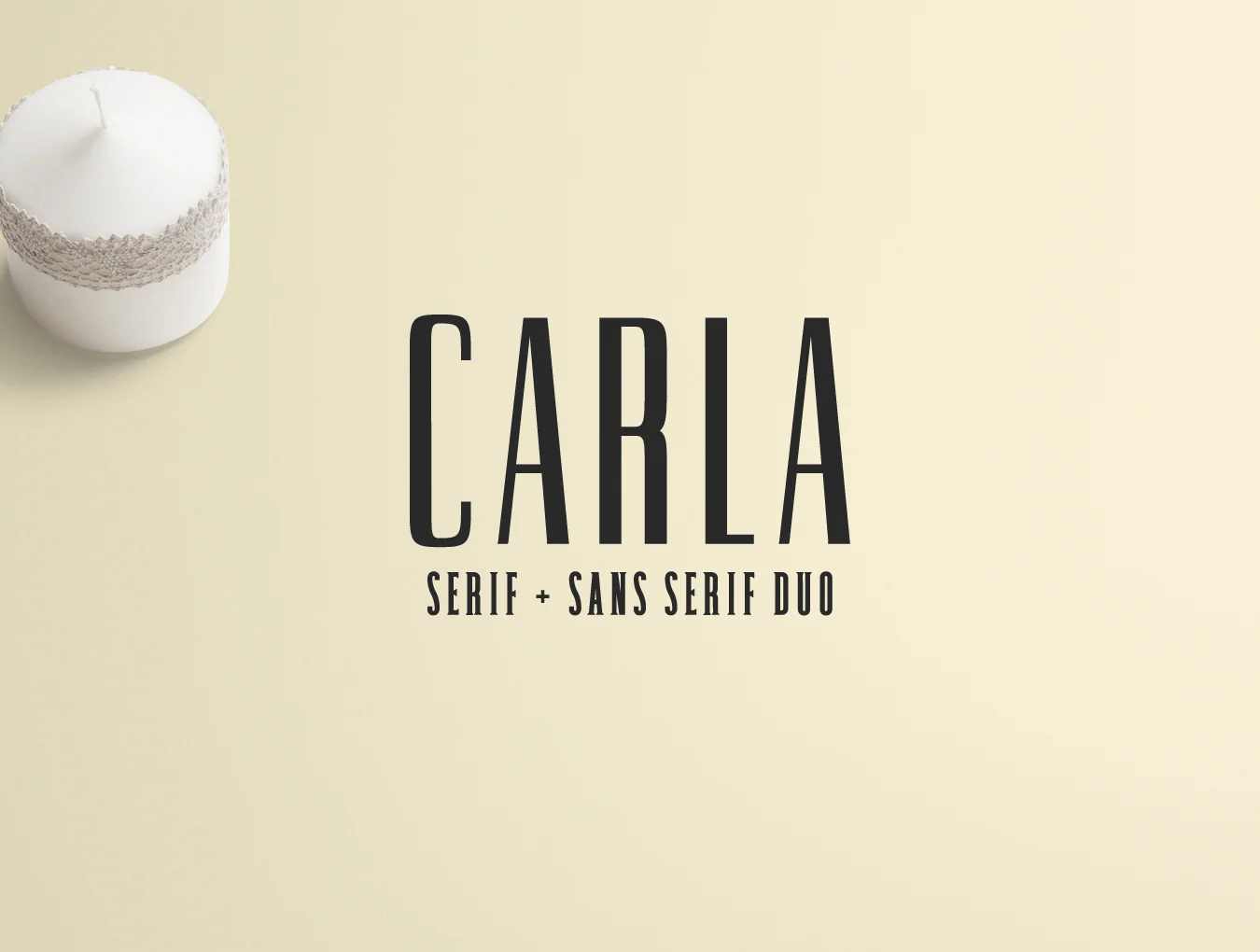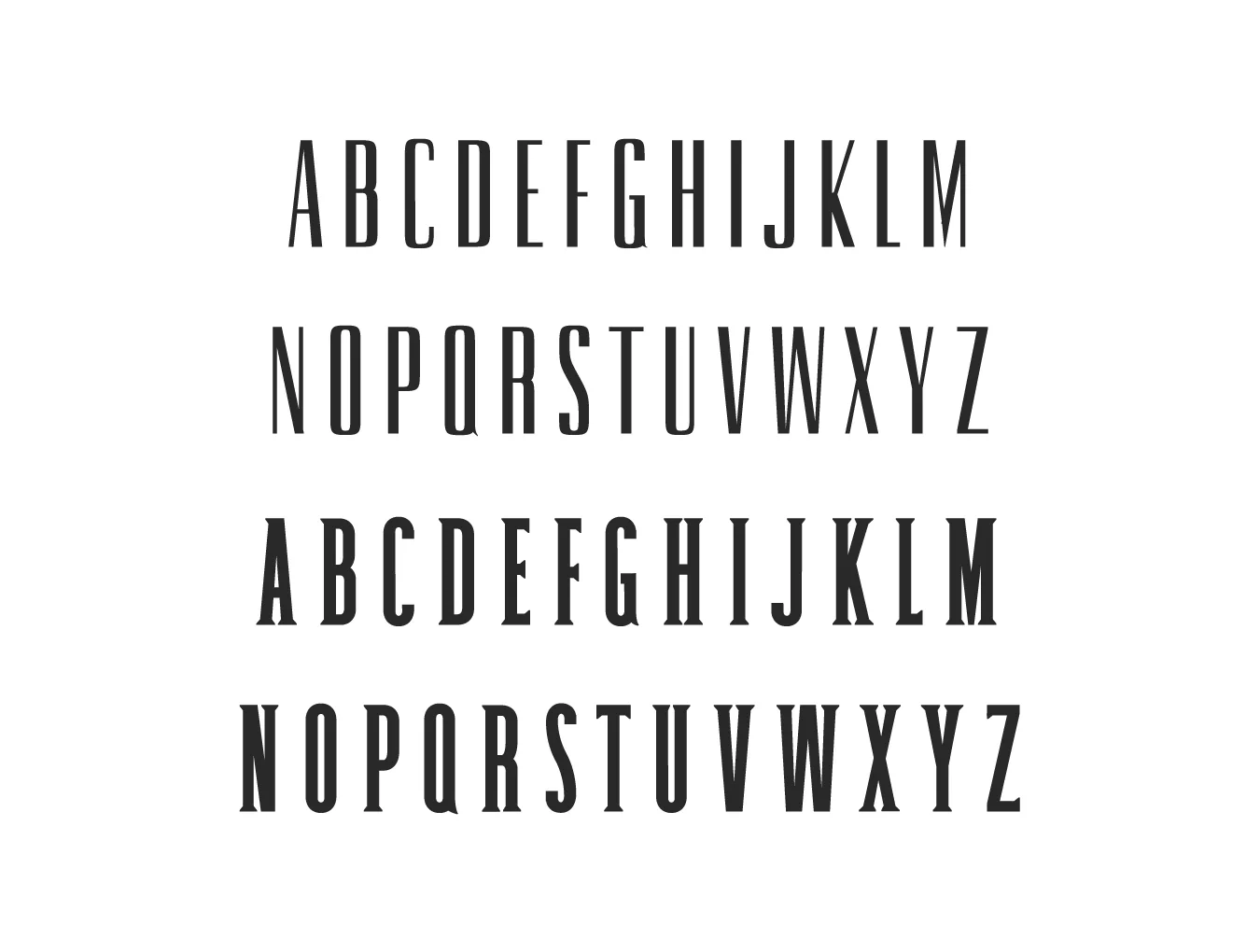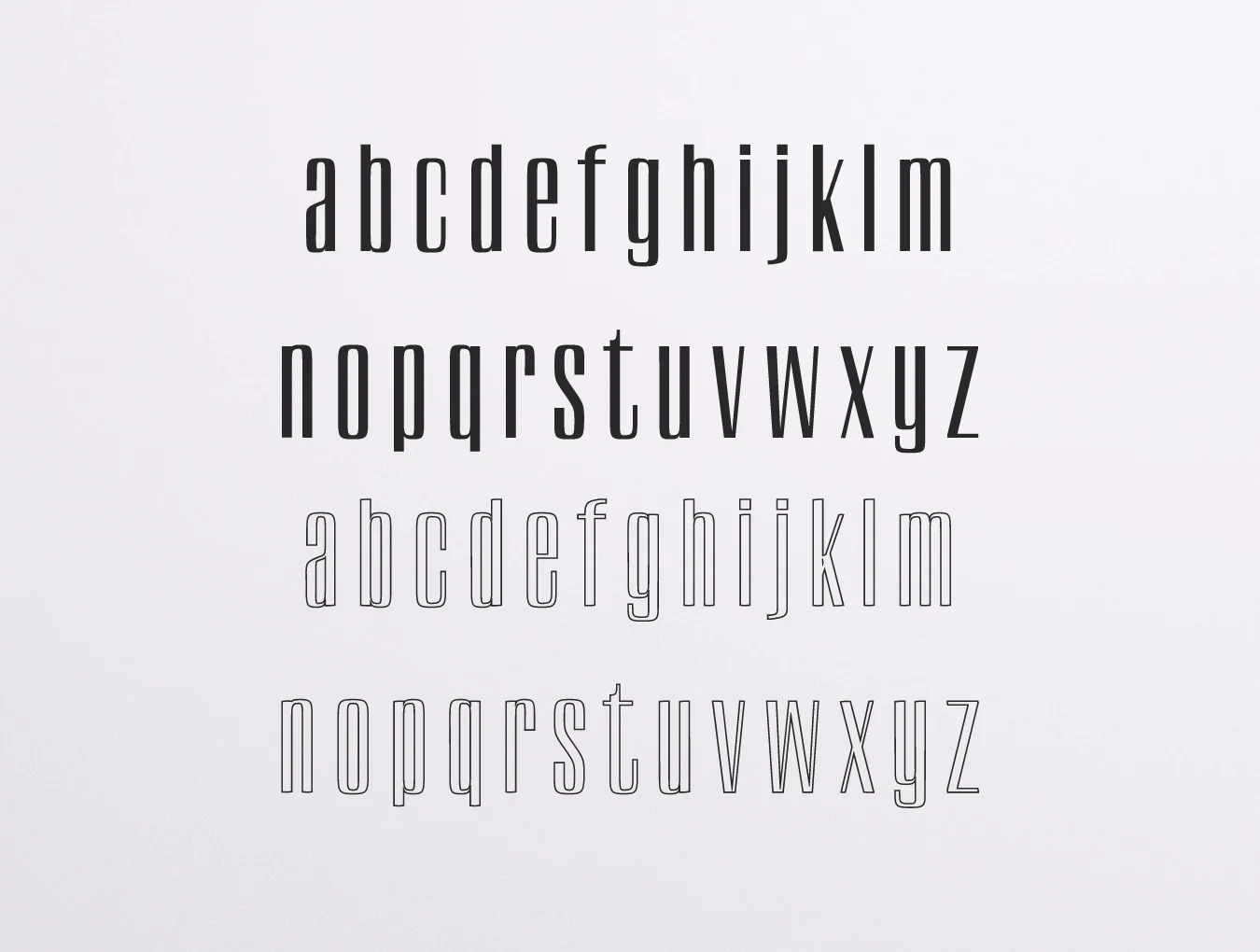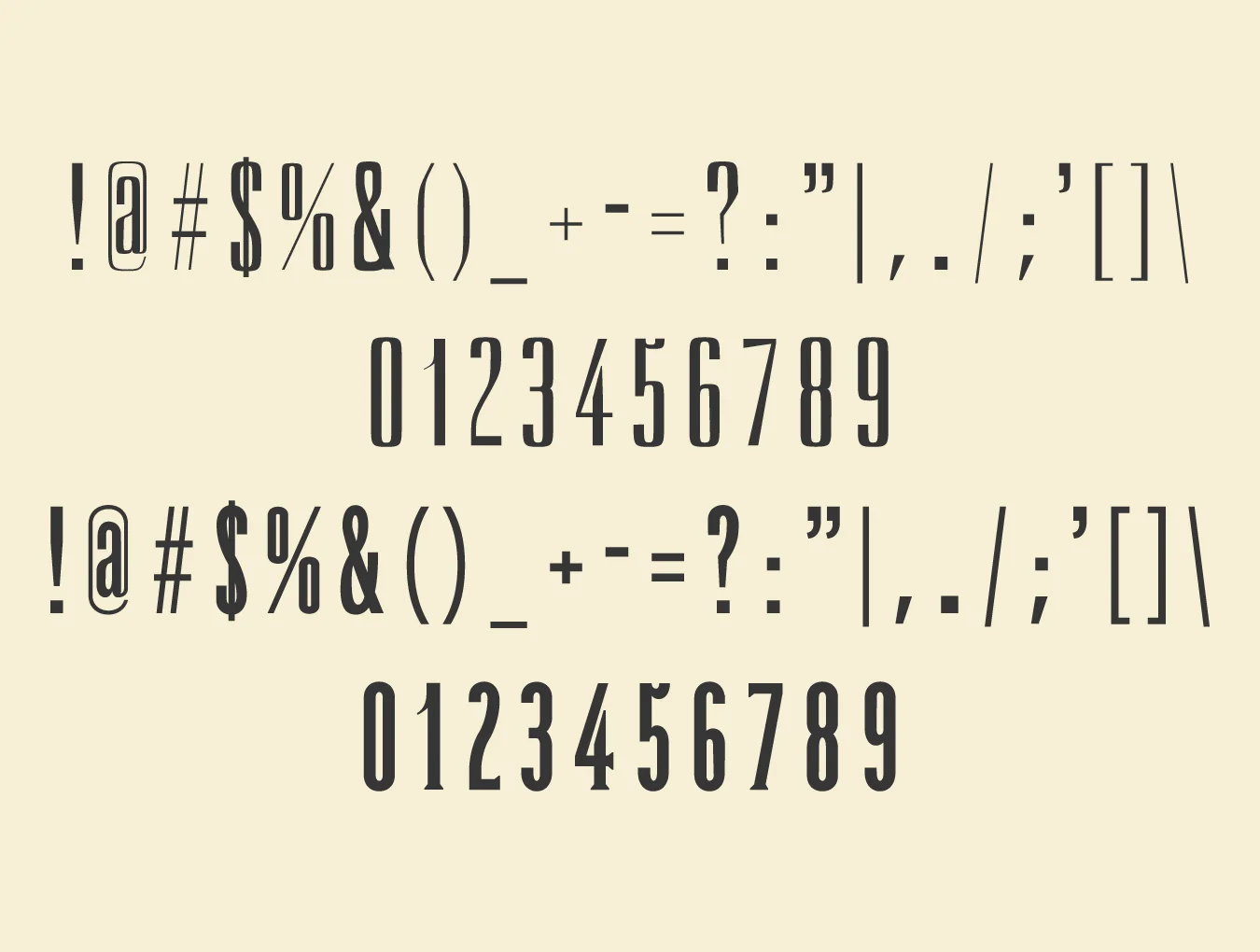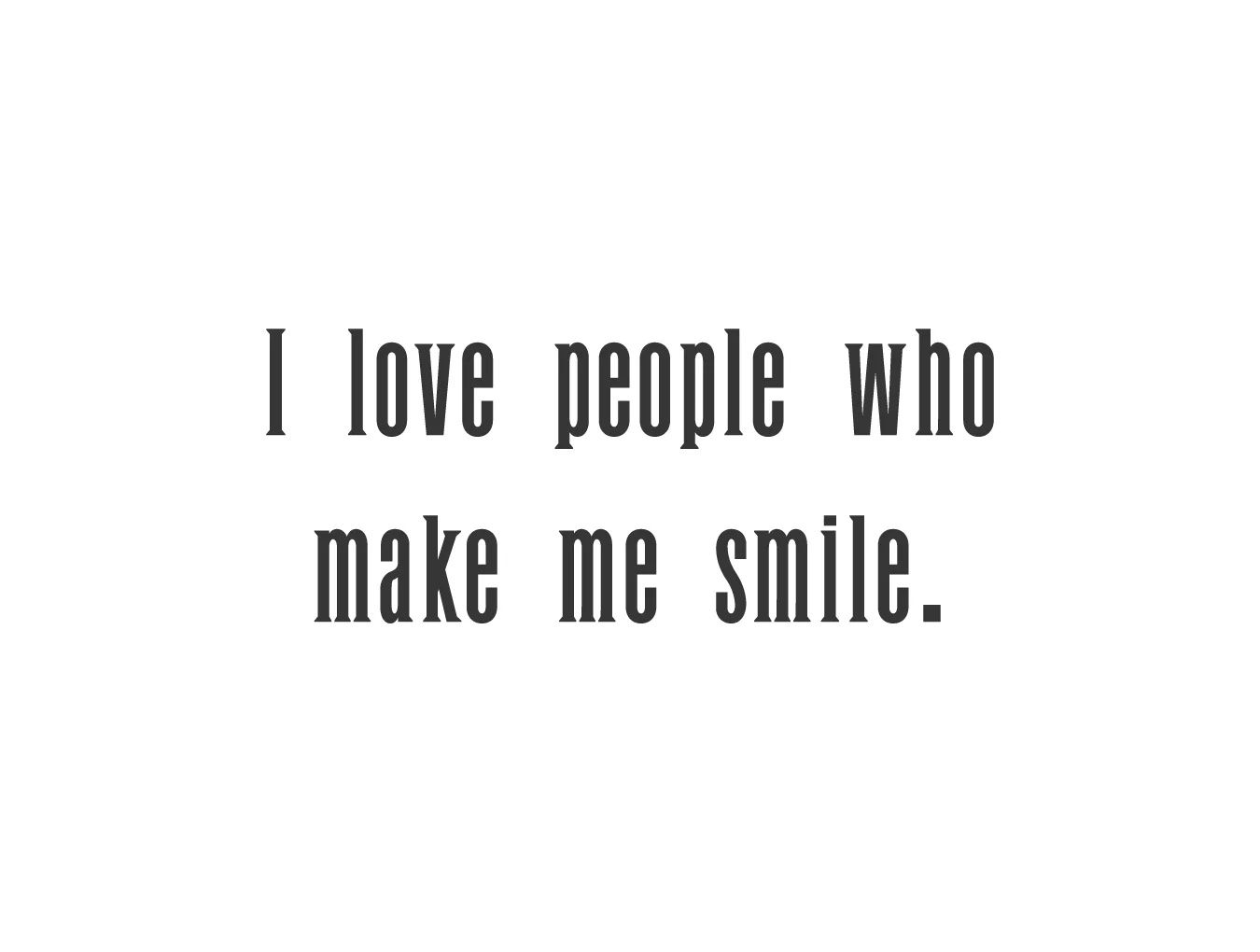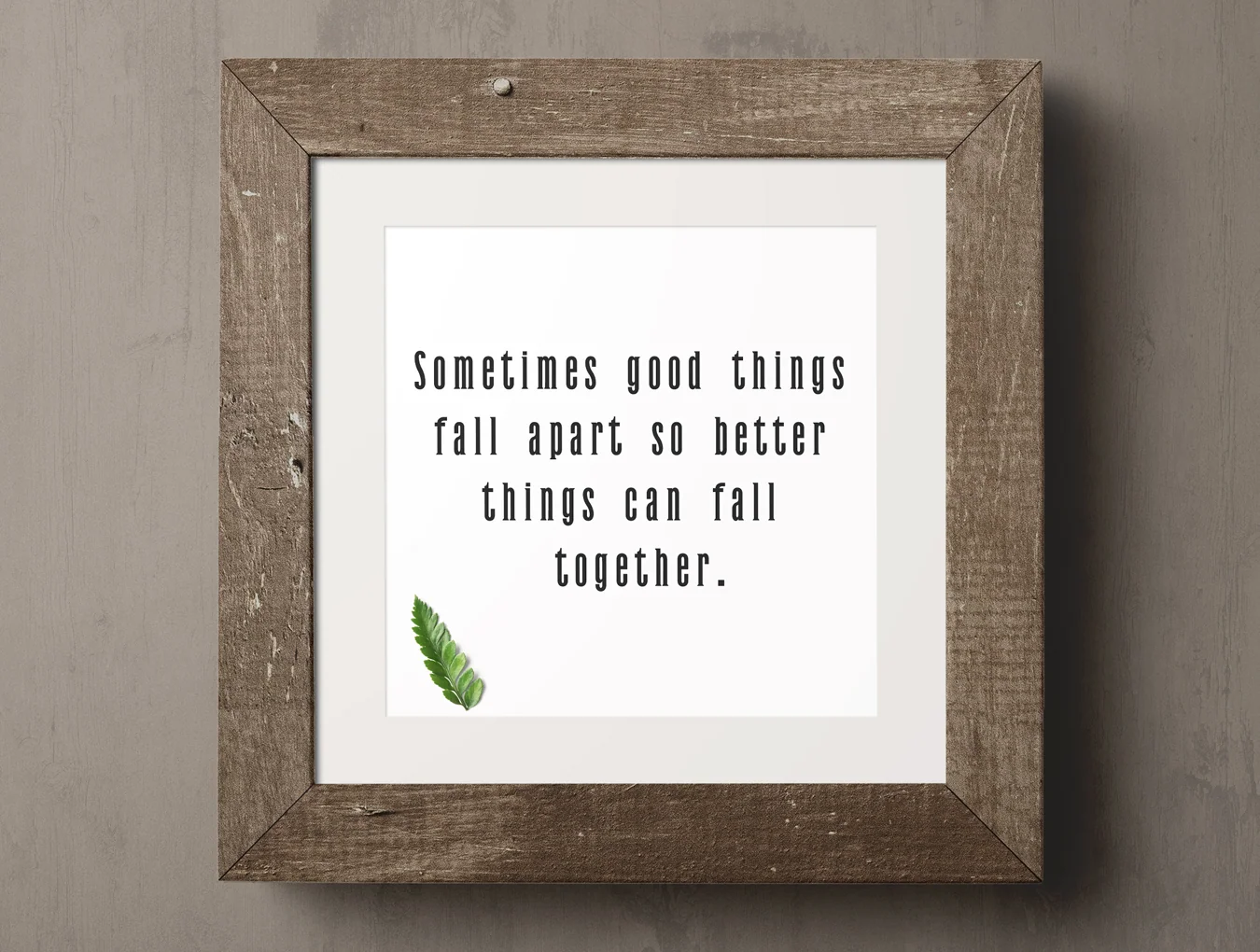
Carla Duo 8 Font
Carla Serif and Sans Serif Duo 8-Font Family Set
Sans and serif typefaces
Includes 255 glyphs
Regular, thin, light and outline styles
Sans and serif typefaces
Includes 255 glyphs
Regular, thin, light and outline styles
Carla Serif + Sans Serif Duo Font Family Pack offers a distinctive contemporary serif style. Ideal for elegant logos, headlines, website designs, and branding projects. Use it in all caps with generous spacing for a refined effect, or mix uppercase and lowercase for a timeless, polished look.